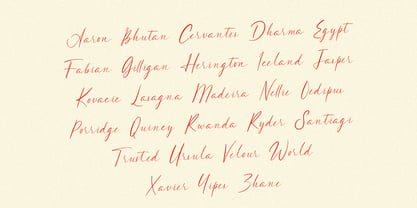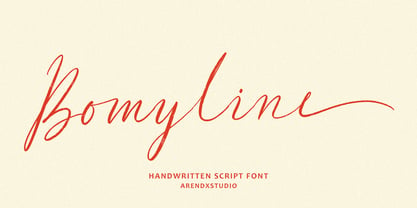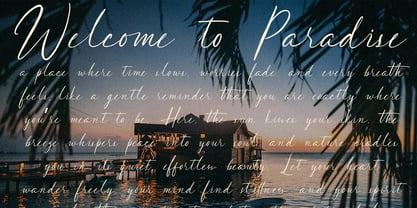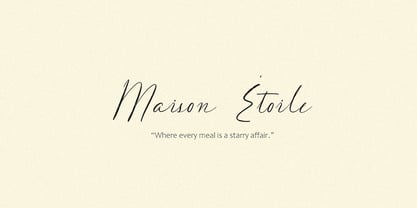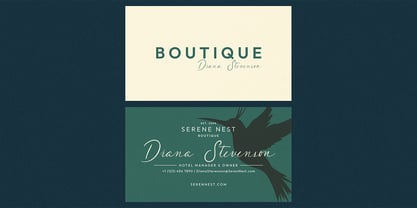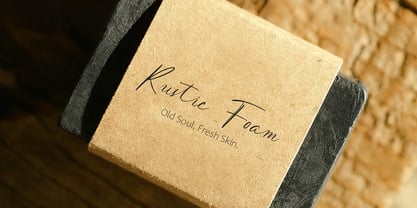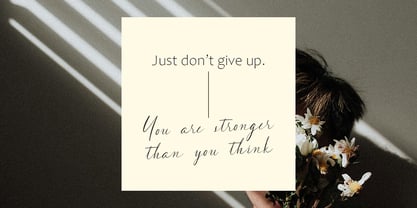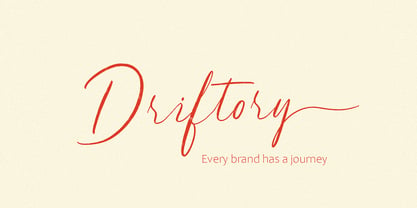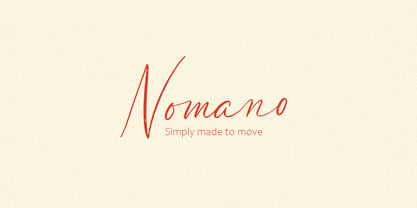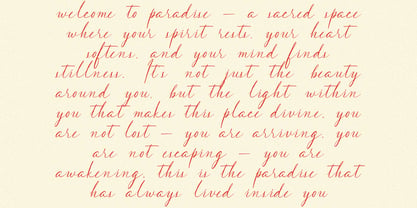
Bomyline
The Bomyline Font Family was designed by Asep Rendi and published by Arendxstudio. Bomyline contains 1 styles. More about this family
Bomyline – Handwritten Script Font
Bomyline is an elegant handwritten script font designed for projects that need a personal and graceful touch. Perfect for branding, wedding invites, logos, packaging, and more. Its fluid strokes and natural rhythm make it a timeless addition to any designer’s font collection.